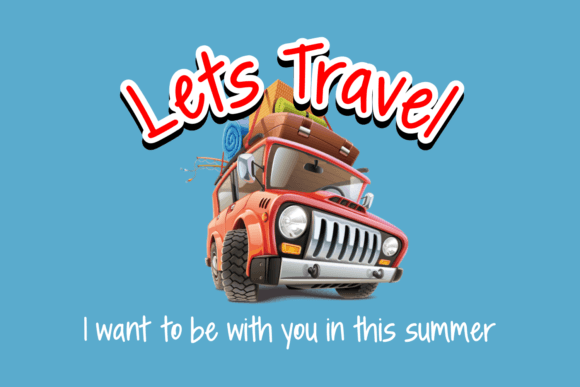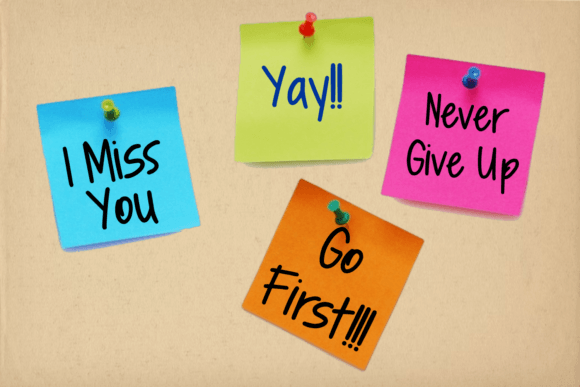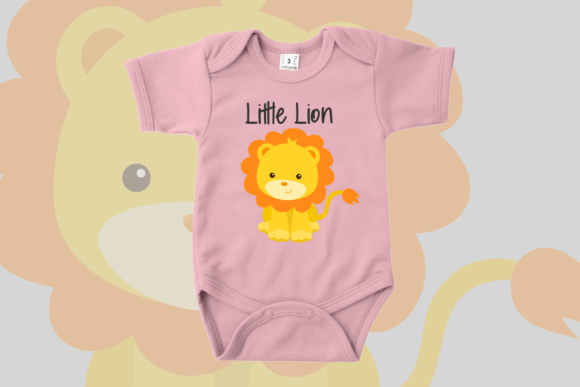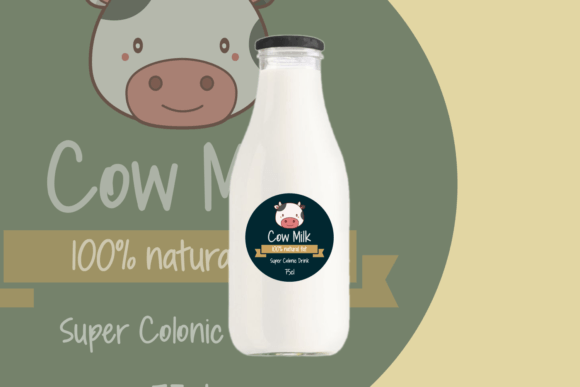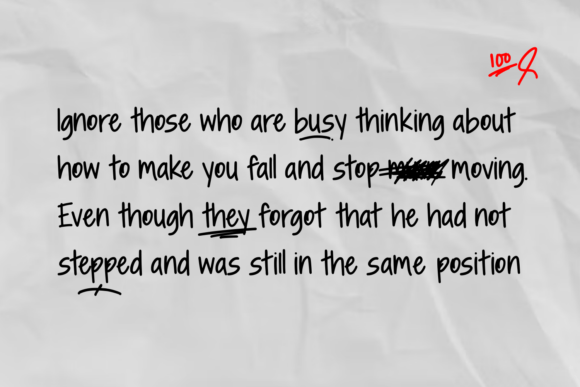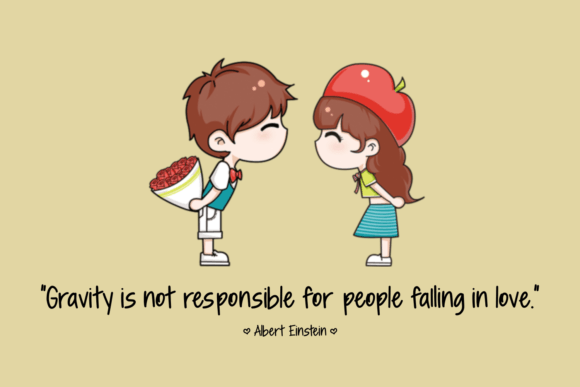
Cracksmoon Font: The Friendly and Cute Handwritten Font You Need
Are you a designer or crafter looking for a font that can elevate your creations and add a touch of personality to your projects? Look no further than Cracksmoon Font, a friendly and cute handwritten font that is sure to become an incredible asset to your font library.
What is Cracksmoon Font?
Cracksmoon Font is a beautiful, handwritten font that is designed to bring a sense of warmth and approachability to your designs. With its playful and whimsical feel, this font is perfect for a wide range of projects, from branding and advertising to crafting and DIY tutorials.
Why You’ll Love Cracksmoon Font
So, what makes Cracksmoon Font so special? Here are just a few reasons why you’ll love adding this font to your collection:
- Versatility: No matter the topic or theme of your project, Cracksmoon Font is sure to fit right in. Whether you’re creating a design for a children’s party, a craft tutorial, or a professional brand, this font will add a touch of personality and whimsy that will make your project stand out.
- Friendly and Approachable: Cracksmoon Font has a warm and inviting feel that will make your designs feel more approachable and friendly. This is perfect for brands or designers who want to create a sense of connection with their audience.
- Cute and Playful: Let’s face it – Cracksmoon Font is just plain cute! With its playful and whimsical feel, this font is sure to add a touch of fun and personality to your designs.
How to Use Cracksmoon Font
So, how can you use Cracksmoon Font in your designs? Here are a few ideas to get you started:
- Branding and Advertising: Use Cracksmoon Font to add a touch of personality to your brand’s logo, packaging, or advertising materials.
- Crafting and DIY Tutorials: Add a playful touch to your crafting and DIY tutorials with Cracksmoon Font. This font is perfect for titles, headings, and other design elements.
- Social Media Graphics: Use Cracksmoon Font to create eye-catching social media graphics that will help your brand stand out.
Tips for Getting the Most Out of Cracksmoon Font
Here are a few tips for getting the most out of Cracksmoon Font:
- Experiment with Different Sizes and Colors: Don’t be afraid to experiment with different sizes and colors of Cracksmoon Font. This font looks great in a variety of sizes and colors, so don’t be afraid to get creative!
- Pair it with Other Fonts: Cracksmoon Font pairs well with a variety of other fonts, so don’t be afraid to get creative and try out different combinations.
- Use it Consistently: To get the most out of Cracksmoon Font, try using it consistently across your designs. This will help to create a cohesive look and feel that will make your brand stand out.
| Font Name | Cracksmoon Font |
| Author | zamjump |
In conclusion, Cracksmoon Font is a friendly and cute handwritten font that is sure to become an incredible asset to your font library. With its versatility, friendly and approachable feel, and cute and playful personality, this font is perfect for a wide range of projects. Whether you’re a designer or crafter, Cracksmoon Font is sure to elevate your creations and add a touch of personality to your designs.
- What is Cracksmoon Font? Cracksmoon Font is a friendly and cute handwritten font that is designed to bring a sense of warmth and approachability to your designs.